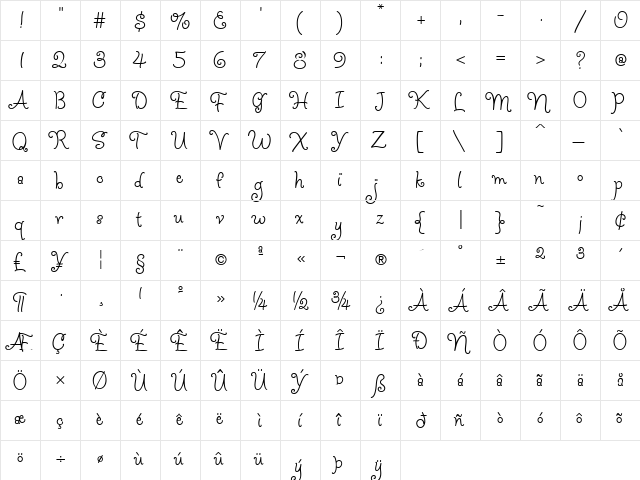
Jelly Bean Regular
| Foundry | TYPADELIC FONTS |
| Designer | Ronna Penner |
Design Context for Jelly Bean Typeface
Jelly Bean is a composed and adaptable typeface that performs quietly and consistently across a wide range of design contexts.